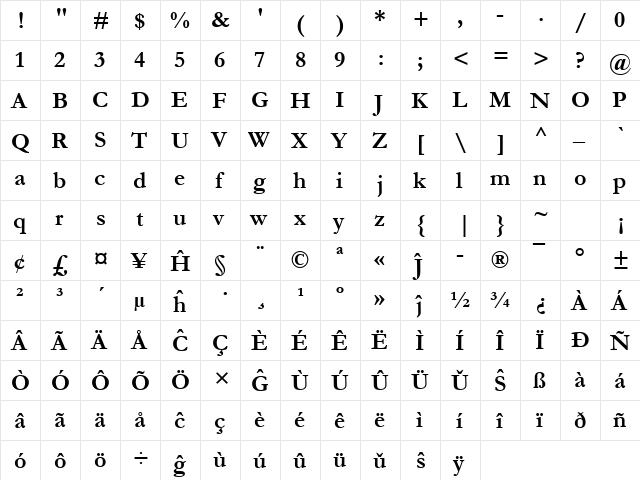
Garamond MT Eo Bold Font Preview
Garamond MT Eo Bold
Garamond MT Eo Bold Font Details
Design Context for Garamond MT Eo Typeface
Garamond MT Eo takes a measured approach to typography — its balanced proportions and neutral character make it a reliable workhorse for both digital and print work. Its bold stroke weight gives it real presence on the page.